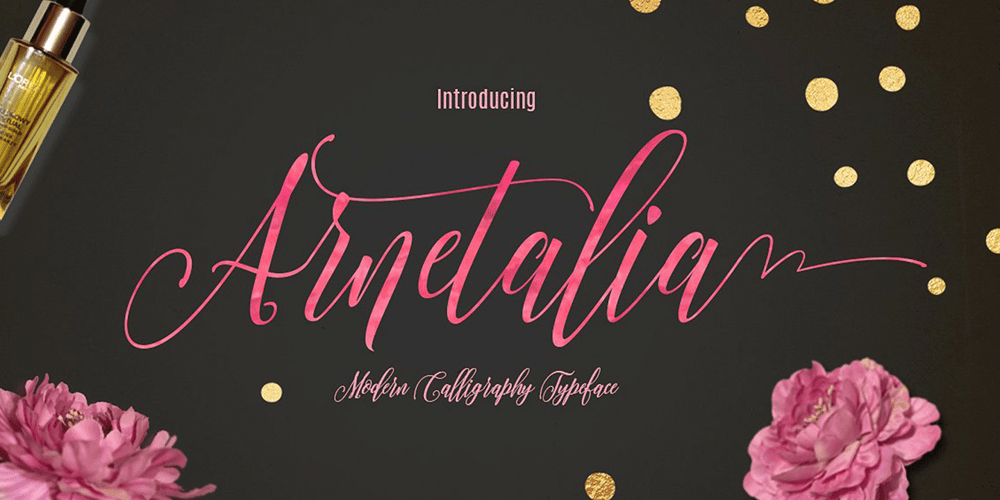
Arnetalia
Arnetalia font
Arnetalia Font Family was designed by Roiyani Teungku and published by Artisan Studio. Arnetalia contains 1 styles and family package options. Arnetalia is Modern Calligraphy. This font was designed by handwriting, and it has a modern and unique forms of calligraphy, the writing style is very natural.Can be used for various purposes.such as headings, logos, wedding invitation, t-shirt, letterhead, signage, lable, news, posters, badges etc. To enable the OpenType Stylistic alternatesThe Features of this fonts is; Standart ligatures Stylistic Alternates Contextual Alternates Stylistic sets File font Arnetalia Include ;Arnetalia PUA Unicode (Private Use Areas)The OpenType features can be very easily accessed by using OpenType-savvy programs such as Adobe Photo Shop, Adobe Illustrator, Adobe InDesign and CorelDraw X6-X7, You can also access most most of these awesome features in Microsoft Word and other similar programs